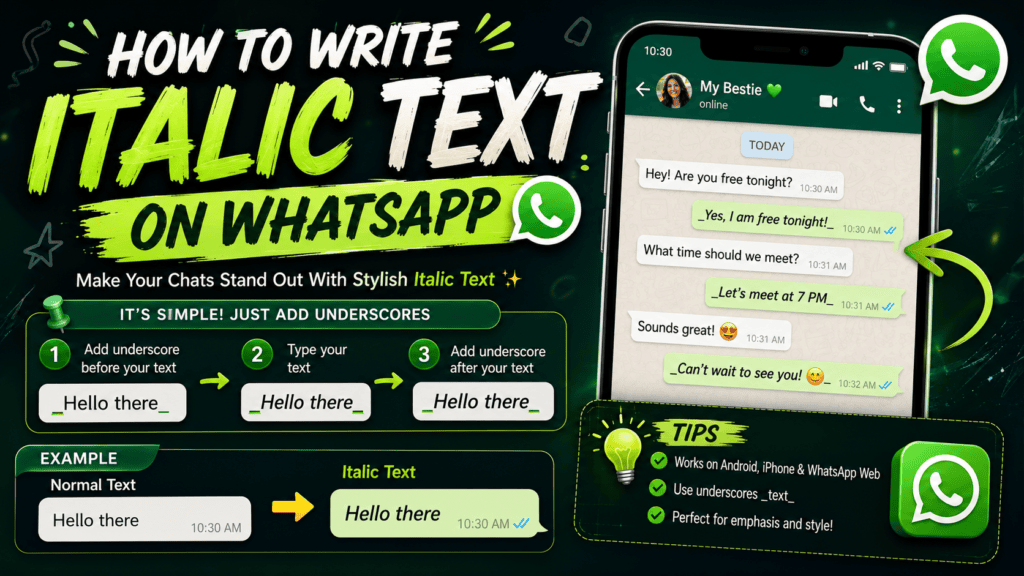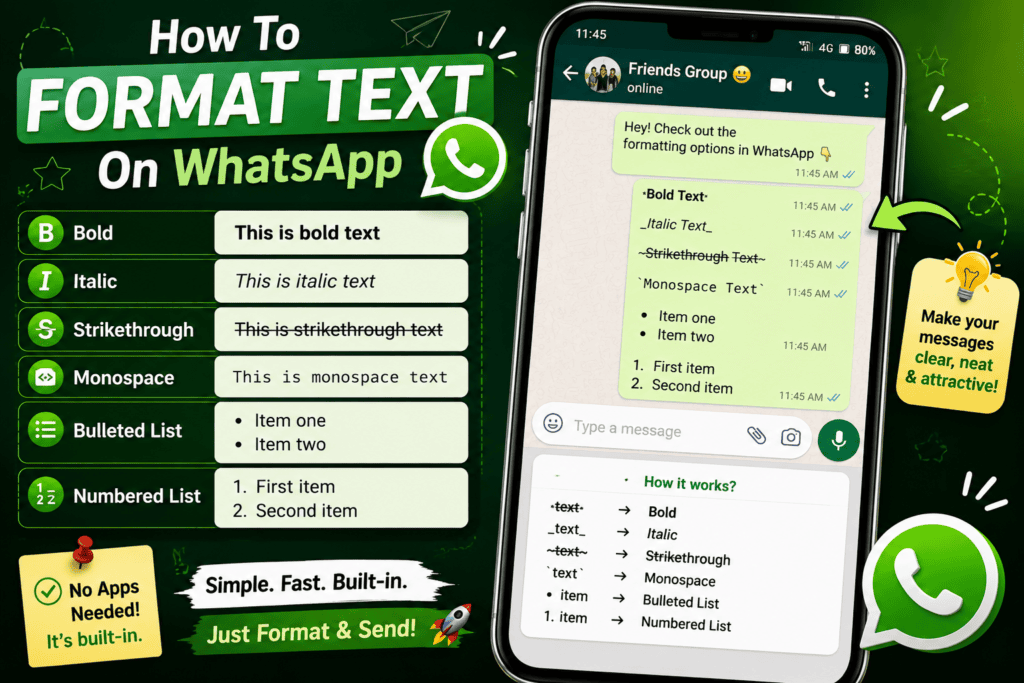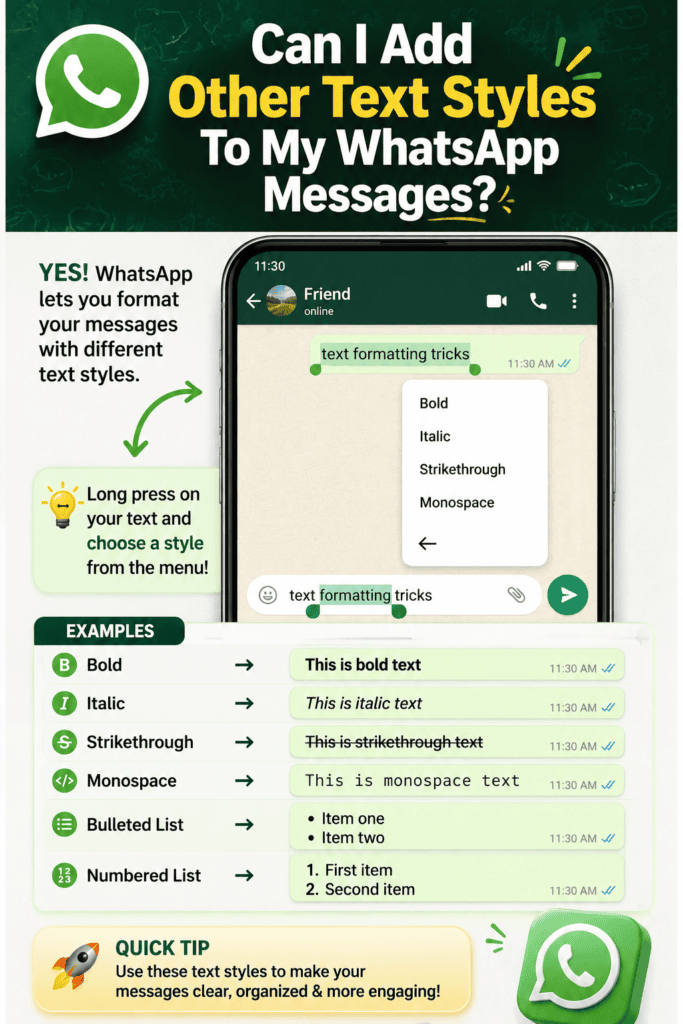
Most people discover italic text only after a plain WhatsApp message fails to call attention to a detail. In my experience, subtle emphasis helps important information feel organized without making a conversation look overly designed.
Instead of changing settings, users simply wrap particular parts of text with an underscore on both sides. The selected text appears in italics, guiding the reader’s eye toward critical facts, headings, phrases, or post-script notes.
How To Make Text Italic On WhatsApp
On WhatsApp, type out your message, placing an underscore on both sides of the text. Keep underscores directly adjacent, with no spaces, so the selected words appear in italics before you send it confidently today.
From experience, I preview the chat window because misplaced formatting characters can leave text unstyled; formatting options make important information quick to read, keep messages easier to scan, and help every recipient recognize emphasis immediately.
Bold – With Asterisks
From practical experience, bold text works best when a single asterisk is placed before and after a chosen passage. On WhatsApp, this simple method helps highlight important information without making the whole sentence visually heavy.
For example, typing New Opening Hours between matching symbols makes the phrase display prominently. I usually reserve this styling for headings or certain words, because excessive emphasis can weaken the reader’s eye and reduce clarity.
Strikethrough – With Tildes
From experience, strikethrough text works best when correcting outdated details without deleting context. Place a tilde on both sides of the wording; once you send the message, readers immediately recognize previous information as clearly revised.
For business opening hours, I often retain the old schedule with a strikethrough effect, then place updated details beside it. This approach helps businesses illustrate changes in contact details, changes of staff, or seasonal offers.
Many Messaging Apps Support Formatting
From daily testing, I’ve noticed many messaging apps treat classic text formatting as a clarity tool, not decoration. Their formatting options help users organize chat messages, separate context, and keep written messages readable during conversations.
WhatsApp keeps formatting practical through special characters, while other platforms use toolbar controls or shortcuts. In my experience, formatted text protects reader’s attention, and third-party solutions expand styling when a chat window offers limited choices.
What Is Text Formatting On WhatsApp Business?
From managing customer conversations, I’ve learned that text formatting in WhatsApp Business is less decoration than navigation: bold text, italics, and strikethrough help readers locate important information, offers, and updates before attention shifts elsewhere quickly.
Practically, careful format text choices let a WhatsApp Message feel structured without becoming a wall of text. I often combine emphasis with emojis, keeping each message clear, engaging, and aligned with a brand’s personality naturally.
How To Format Text On WhatsApp And WhatsApp Business
In practical client-chat reviews during busy exchanges, text formatting makes WhatsApp Business messages easier to scan. Use bold, italics, strikethrough, or monospace font selectively, placing the symbols around relevant text before you send each message.
Rather than styling everything, highlight only important information: an Opening Hours change, price reduction, or short sale period. On a mobile device, press and hold text, then choose available formatting options from the context menu.
How To Make Text Bold On WhatsApp
In practice, bold text works best when a key instruction appears instantly. On WhatsApp, type out the phrase, place an asterisk at the beginning and end, then send without spaces around either marker for clarity.
I often format text this way for deadlines, totals, or warnings because the effect remains clear without changing the entire style. If it fails, check both asterisks, correct the typing, and send messages again confidently.
How To Strikethrough Text On WhatsApp
From professional experience, I’ve learned that correction feels clearer when you place tildes around a relevant word rather than deleting it. WhatsApp then shows a wavy line, preserving context while signaling an intentional visible revision.
To apply it, write one tilde before and another after the wording, keeping both symbols tight against the letters. I usually preview the sentence first, because excessive strikethrough can confuse readers instead of clarifying revisions.
How To Format Text As Monospace Font On WhatsApp
In practice, monospace fonts work best when sharing codes, references, or aligned details. Place three backticks on either side of the chosen block of text; WhatsApp then presents characters with consistent spacing throughout each line.
Can I use a font generator tool to create italic WhatsApp text?
Yes, an online italic font generator or fancy text converter can create Unicode-based italic characters that you copy and paste directly into WhatsApp, bypassing the need to manually type underscore syntax. These tools also offer stylish text alternatives, cursive fonts, and decorative Unicode symbols, giving users more creative formatting options beyond WhatsApp’s built-in styling commands.